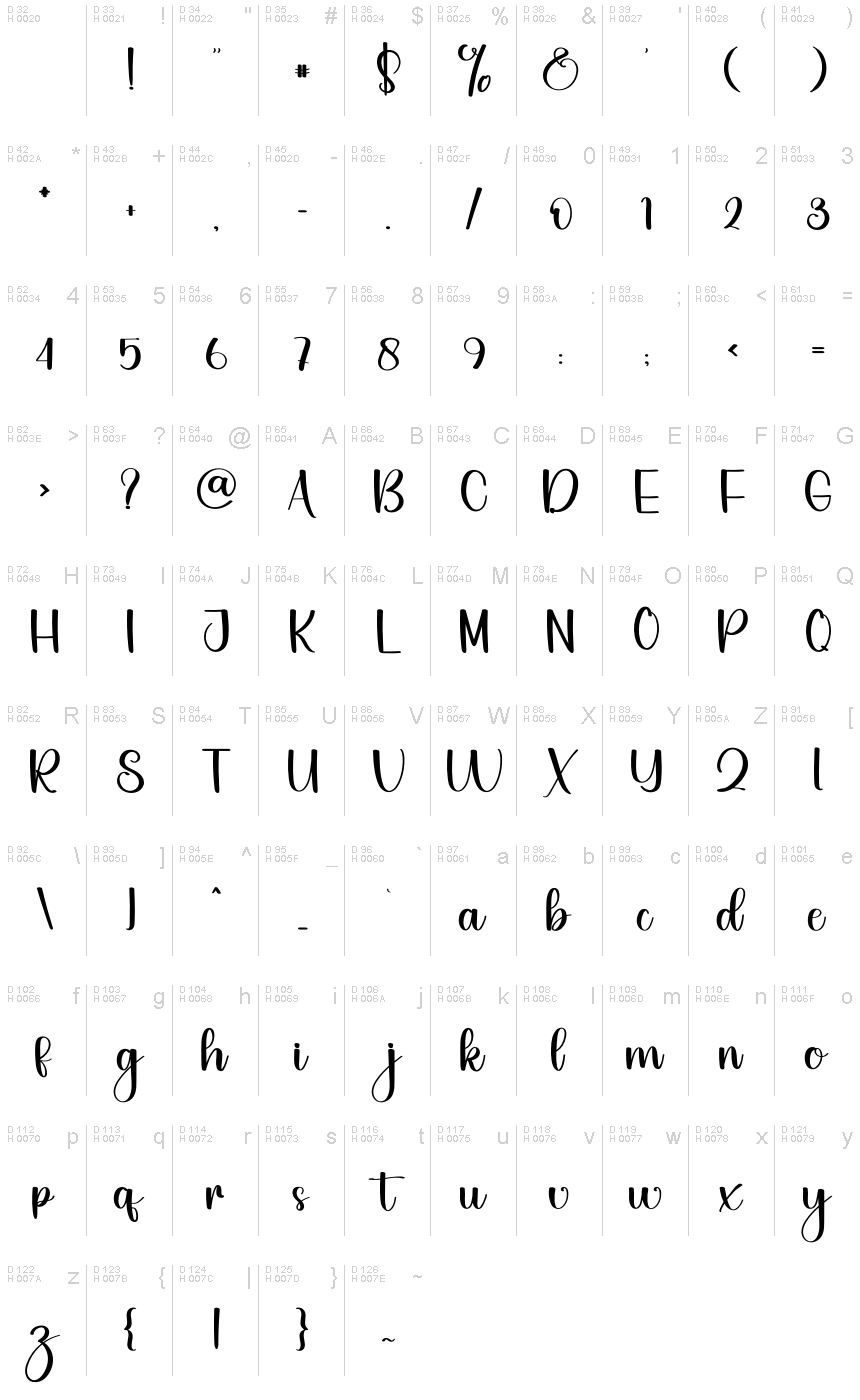
The Hospital
The Hospital by FreshtypeINK is a captivating handwritten font that effortlessly combines elegance with personality. Each letter exudes a fluid and natural movement, reminiscent of graceful penmanship, making it particularly distinctive and charming. The boldness in certain strokes contrasts harmoniously with its lighter counterparts, adding depth and visual interest.
Ideal for branding projects, social media graphics, and invitations, The Hospital stands out in any creative setting. Its unique handwriting style brings warmth and authenticity to designs, evoking a sense of personalization that digital typefaces rarely achieve.
Whether you're crafting a heartfelt message or designing eye-catching logos, The Hospital provides versatility with an artistic flair that's perfect for making memorable impressions.